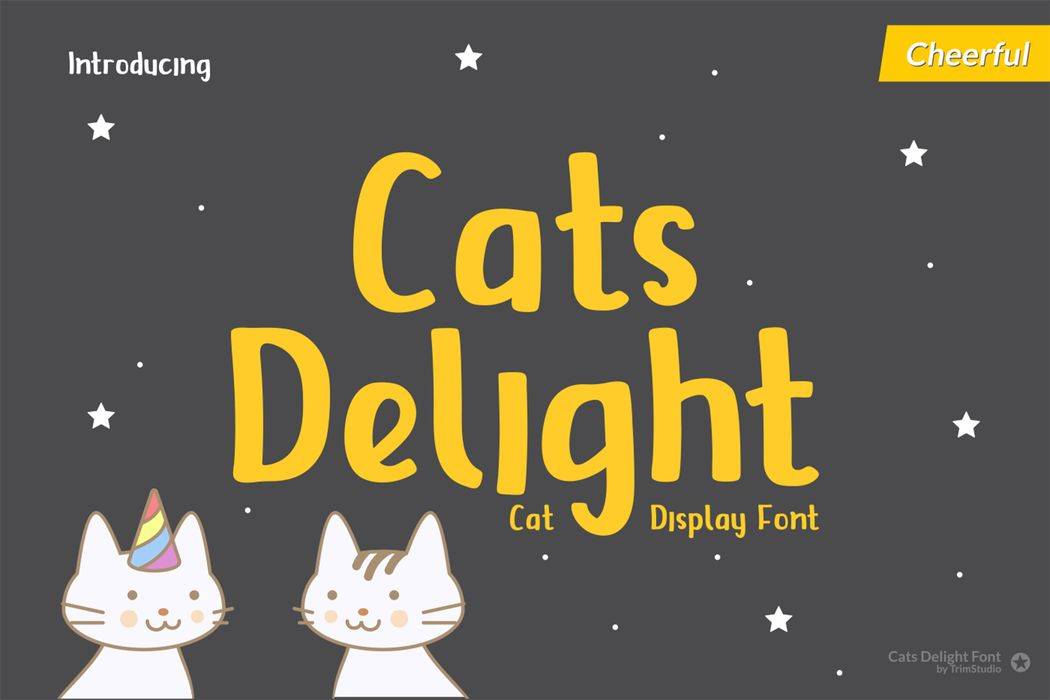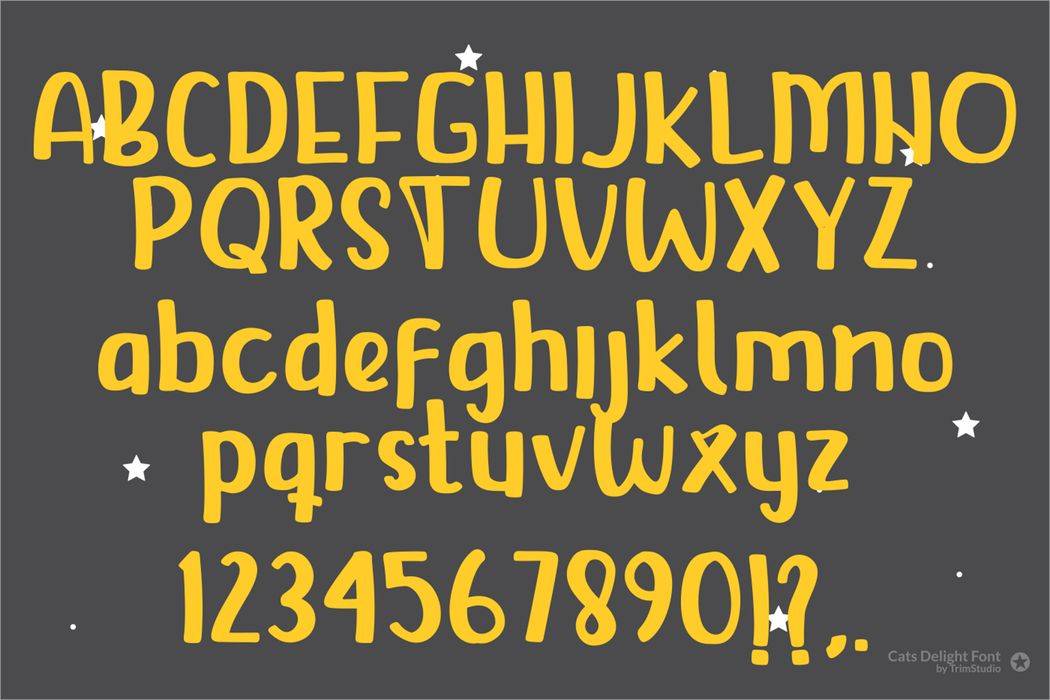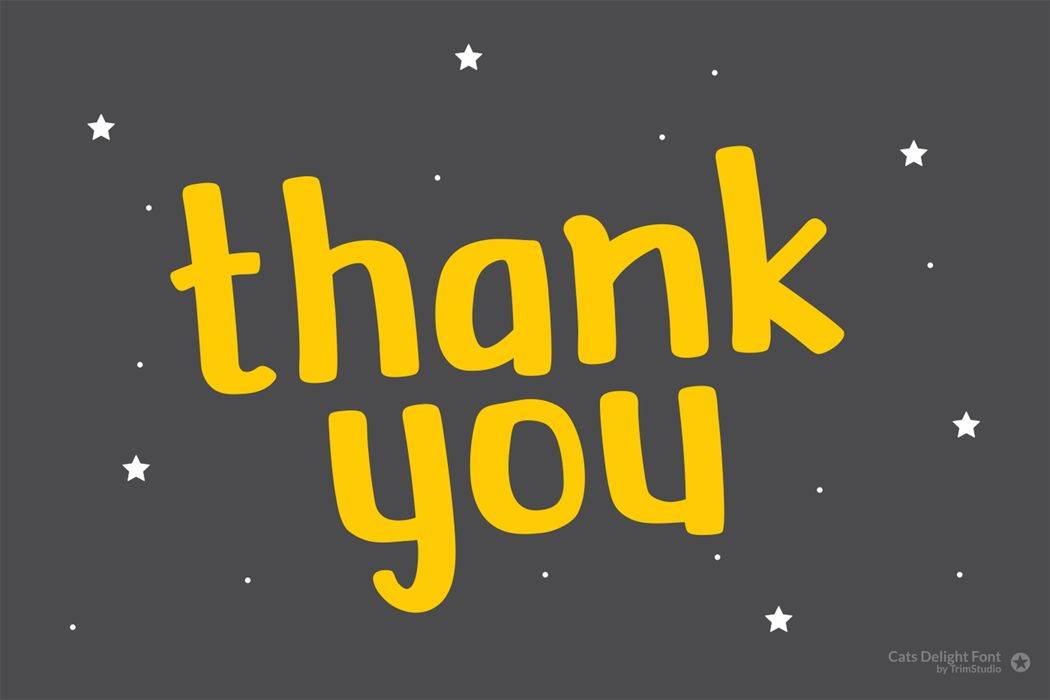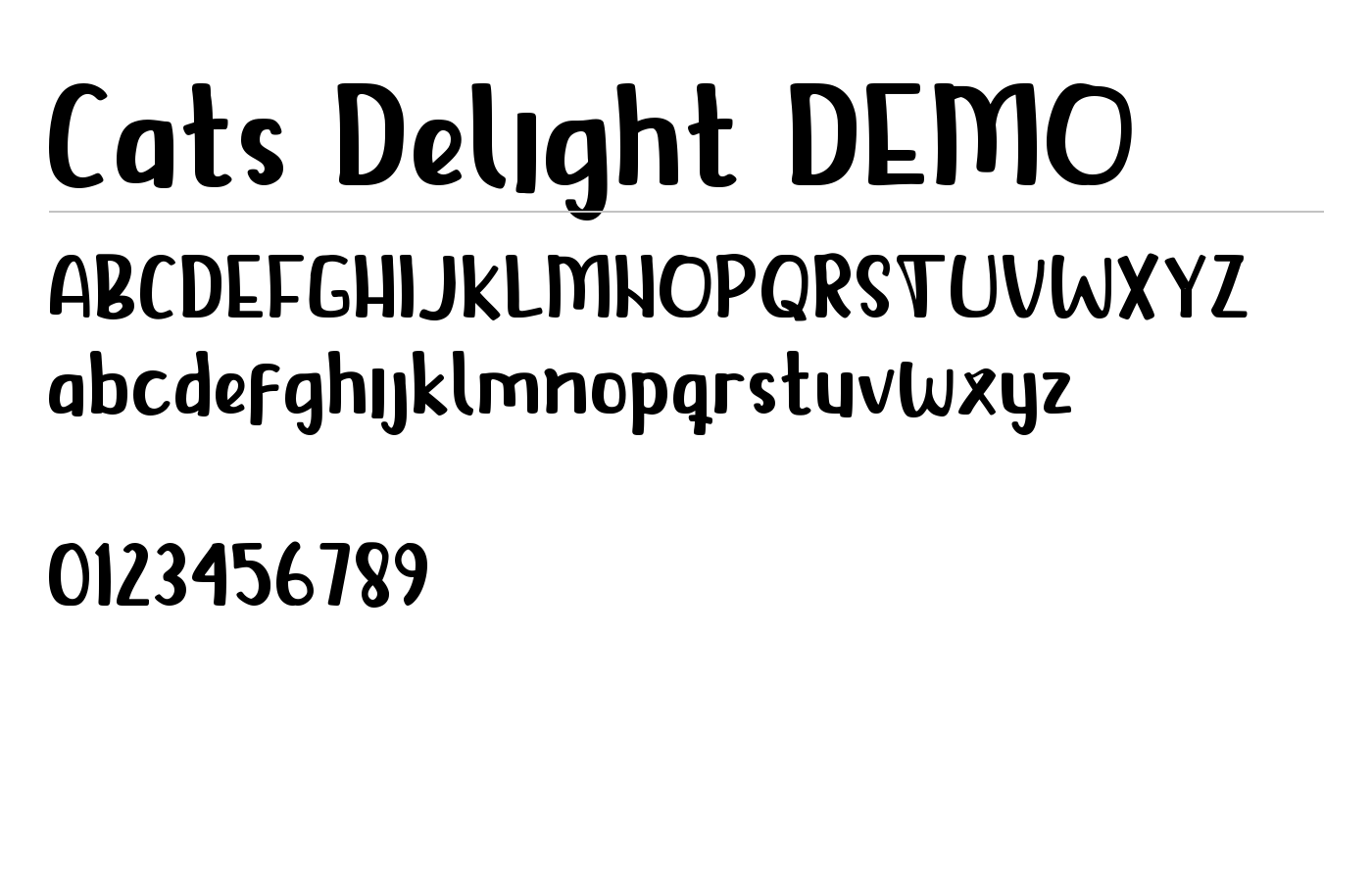
Cats Delight is a playful and casual sans serif font with a hand-drawn feel, featuring slightly irregular letterforms and moderate weight that give it warmth and personality. Its tall x-height and simple shapes make it legible and friendly, ideal for fun, informal designs such as children's books, greeting cards, or creative branding. This font works best when you want to convey approachability and creativity in a relaxed and charming style.
Cats Delight Font
About Cats Delight Font
| Font family | Cats Delight Font |
| Designer | Trim Studio |